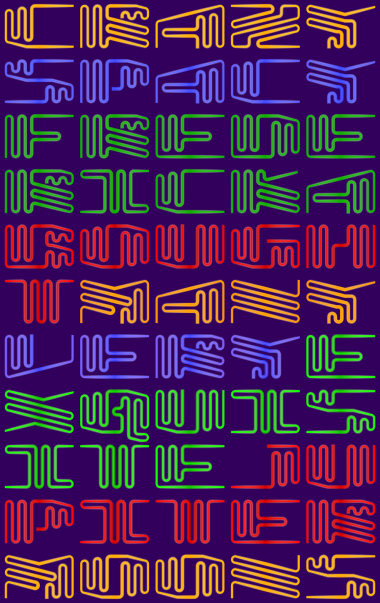
Beautiful!
It has poly-multiline effect and shares same characteristics as those submissions of Yautja and ETH, so, I hope it qualifies. Alternative A,V,Z look better to me.
Wow!
More interesting work - I look forward to seeing a glowing sample.
Very good. Hard to beat :)
Great work! The Q is epic. I prefer the alternate V to your current one.
Well done!
Some of the letters are ridiculously awesome. M N V Z etc.
Space Age Hieroglyphics. The design is way out there, but lines are balanced. Looks good at small and large sizes. I wonder how cool a complete lowercase would like.
Wow! Very smart neon design. 10/10
How does one make tildes when the font is this wavy?
great sample love this font
Congratulations! FontStruct Staff have deemed your FontStruction worthy of special mention. “Fluorescent” is now a Top Pick.
@CMunk: Maybe make the tilde square :P